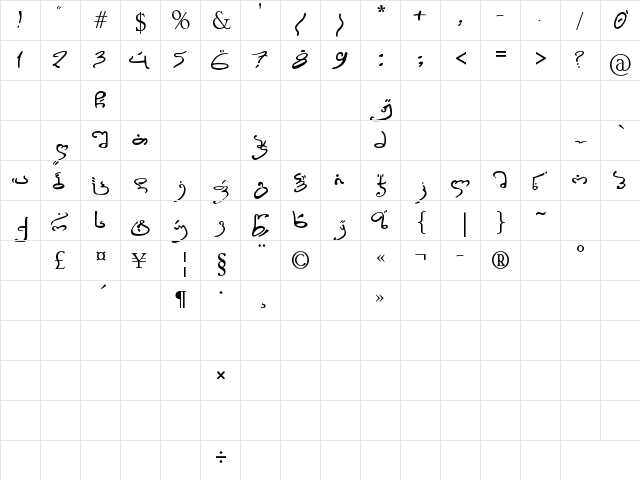
Thart_Geo_Arab Regular
Design Context for Thart_Geo_Arab Typeface
Thart_Geo_Arab is a composed and adaptable typeface that performs quietly and consistently across a wide range of design contexts.